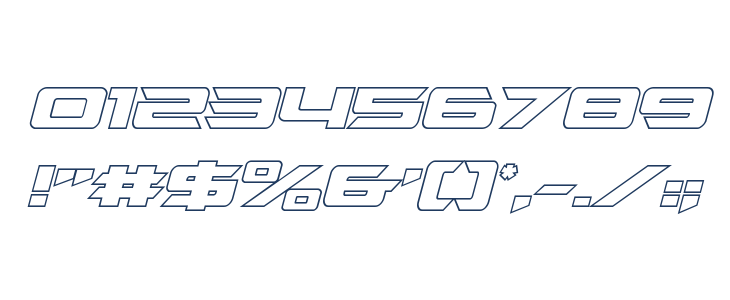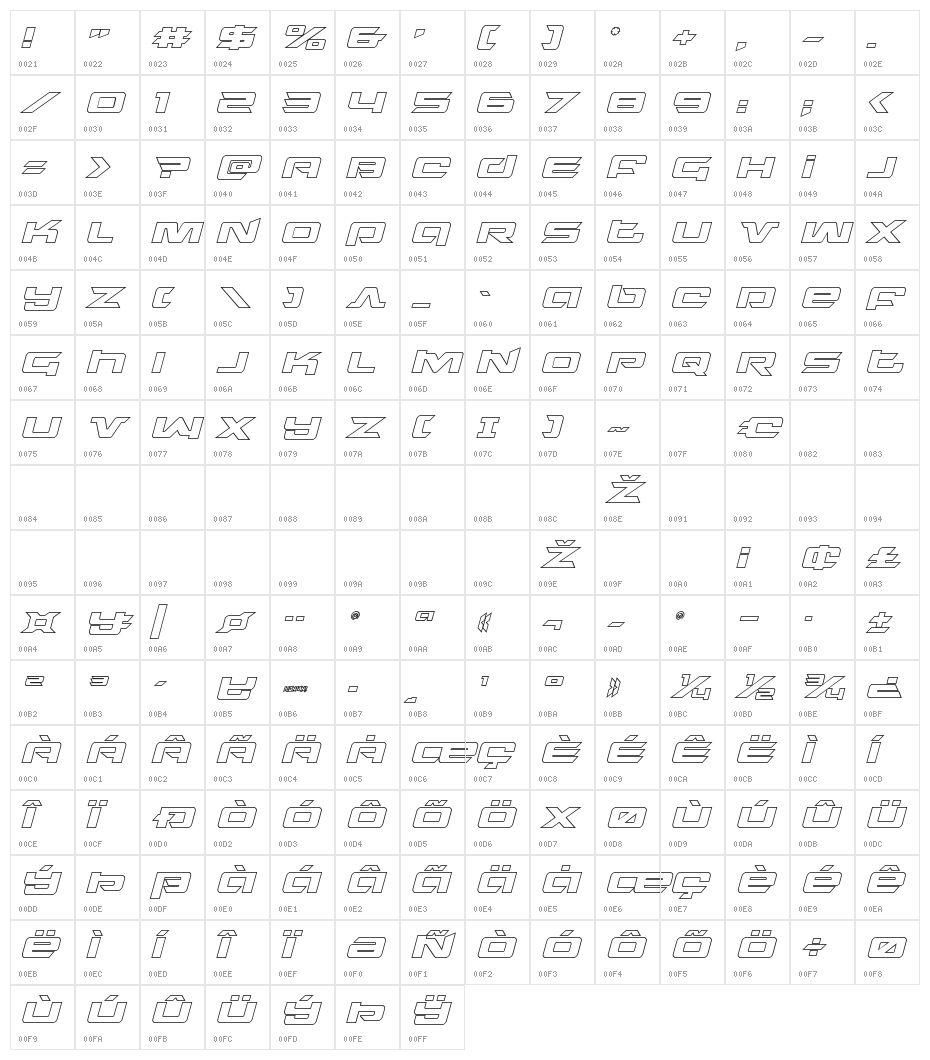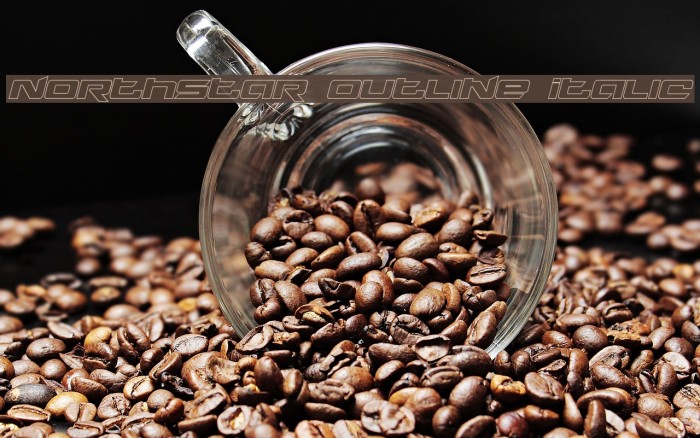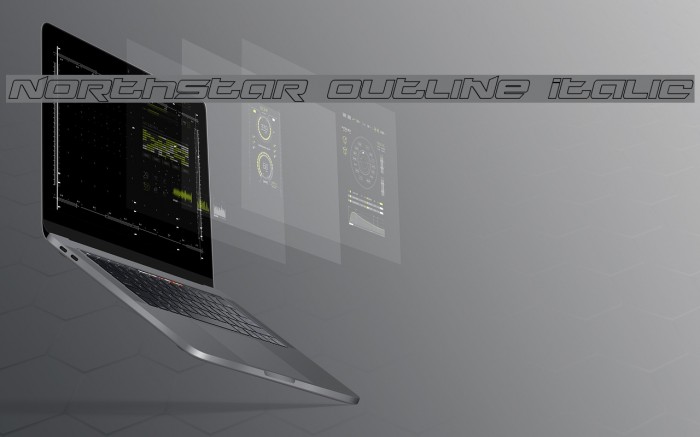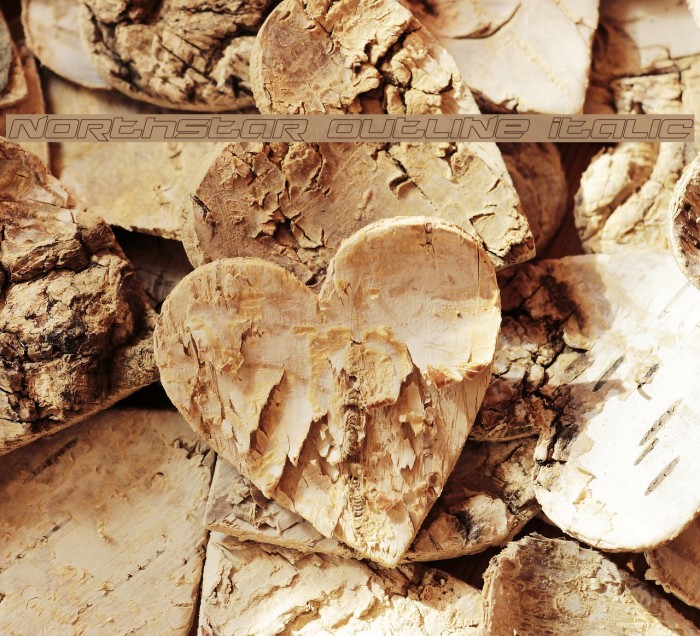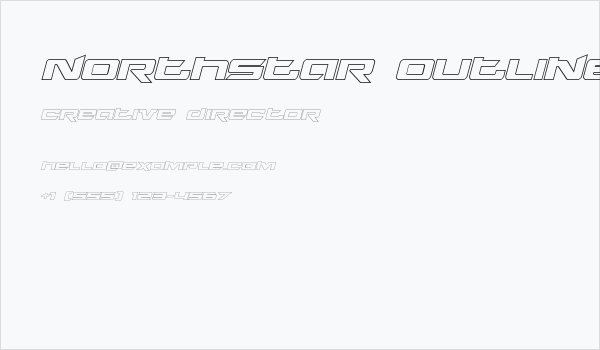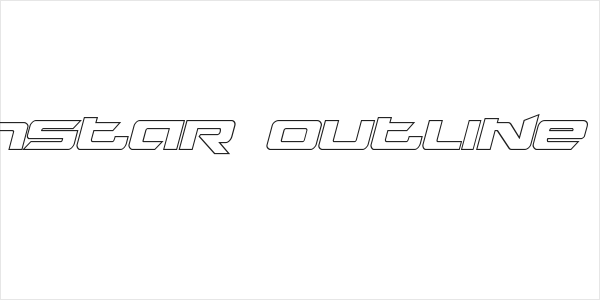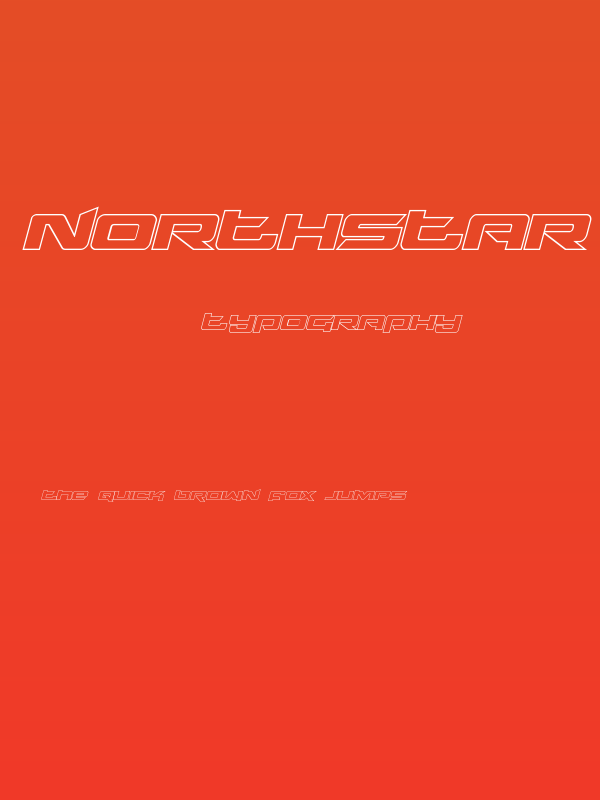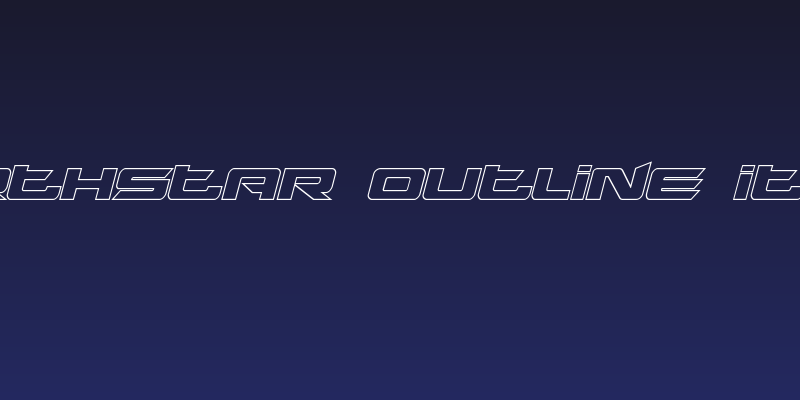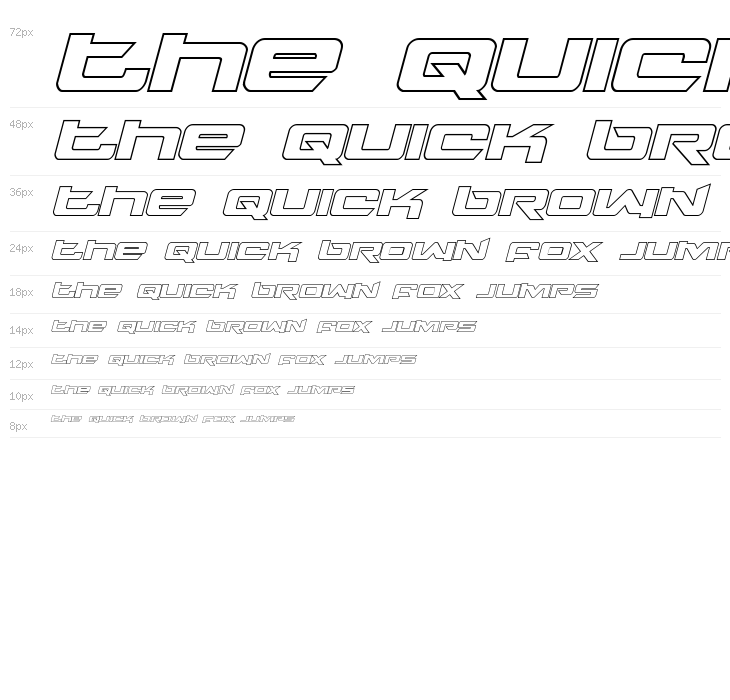
Northstar Outline Italic Font
Northstar Outline Italic Description
This font features a sleek, futuristic outline design with a distinct italic slant. The characters are constructed with sharp angles and geometric shapes, giving it a modern and dynamic appearance. The uppercase and lowercase letters maintain a consistent style, with a uniform stroke width that enhances readability. The numerals and special characters are designed to match the overall aesthetic, ensuring a cohesive look across all text elements. The font's outline nature makes it ideal for creating striking visual effects, particularly in digital and print media.
| Proposed Projects | Ideal for sci-fi themed designs, technology branding, video game titles, and modern posters. |